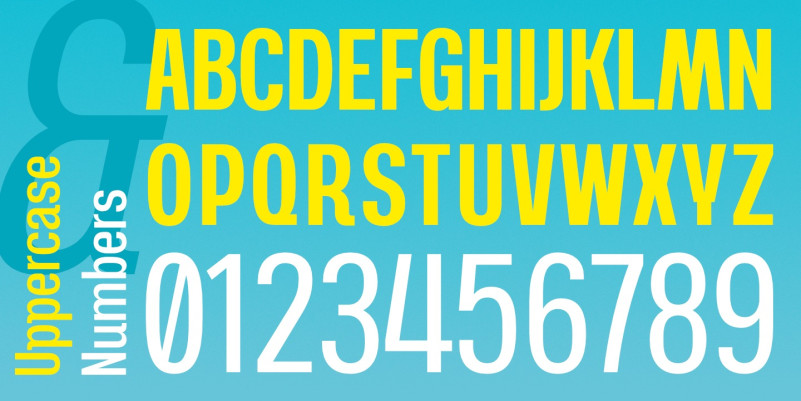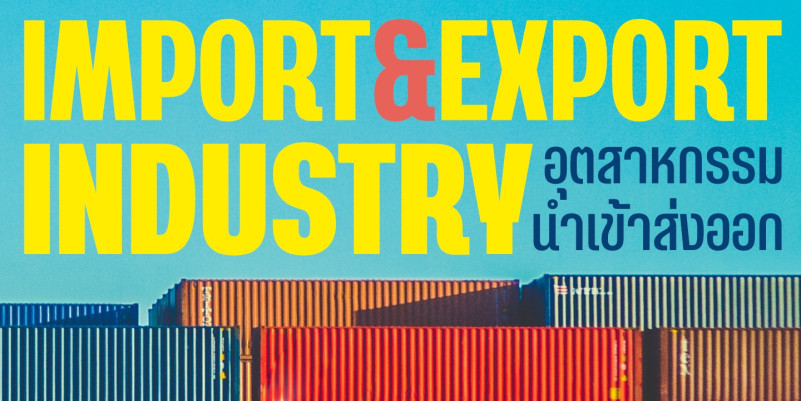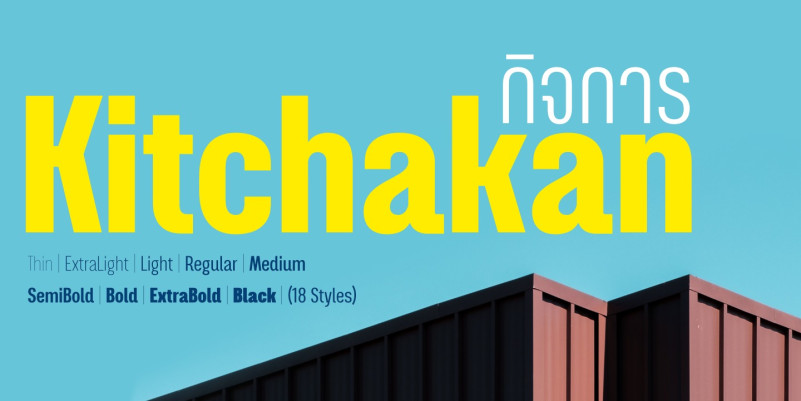
Kitchakan Font
Kitchakan Sans Serif Font,  Perfectly fit for branding, logo, wedding things, greeting cards, fashion, lookbook, marketing promotion, anytime you want to look fancy elegant but still casual.